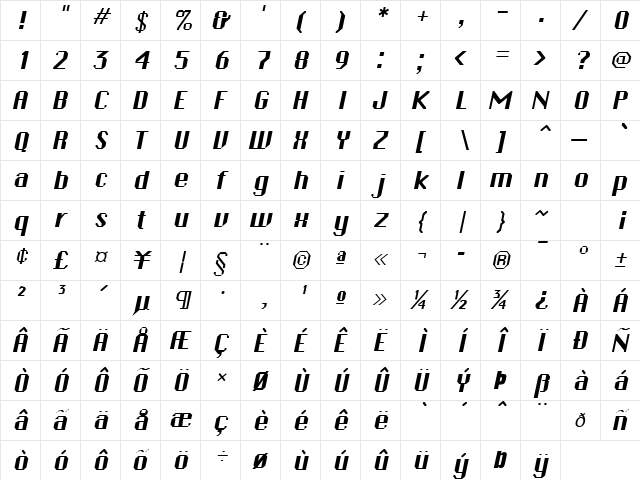
Ambush-Extended Italic
Design Context for Ambush-Extended Typeface
Ambush-Extended takes a measured approach to typography — its balanced proportions and neutral character make it a reliable workhorse for both digital and print work. Its italic angle brings a sense of urgency and motion to the letterforms.